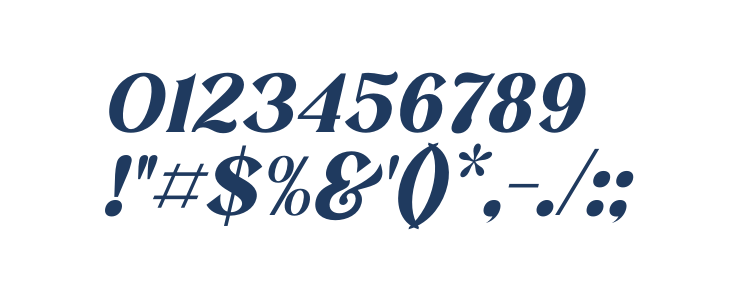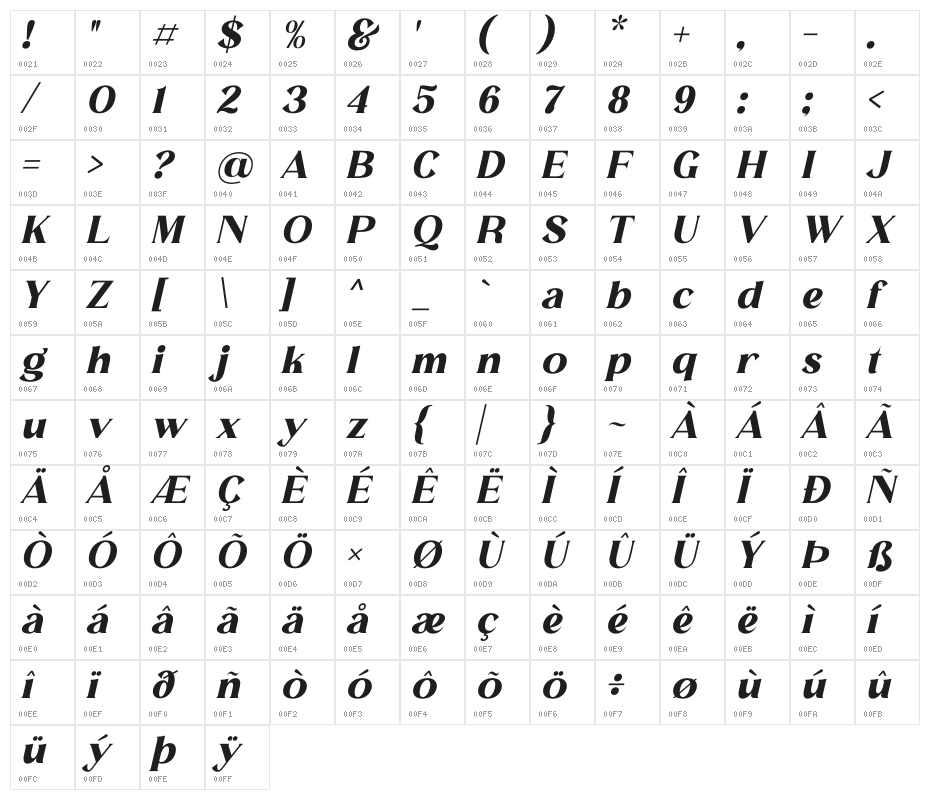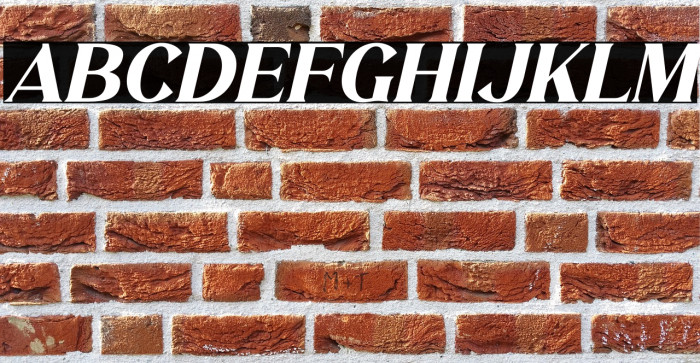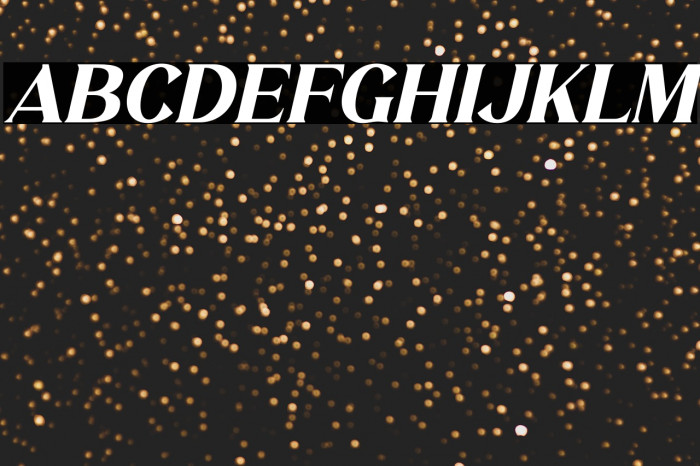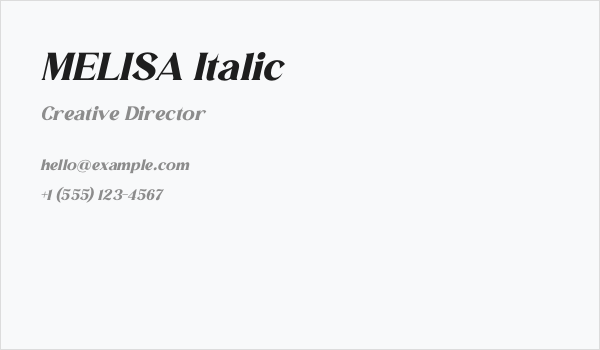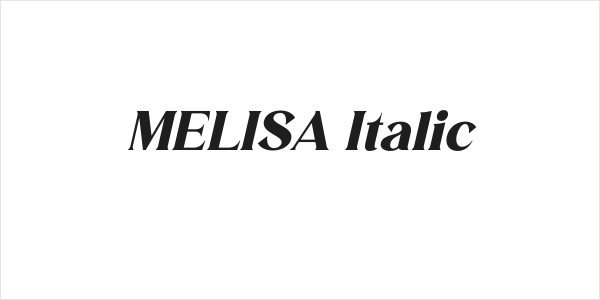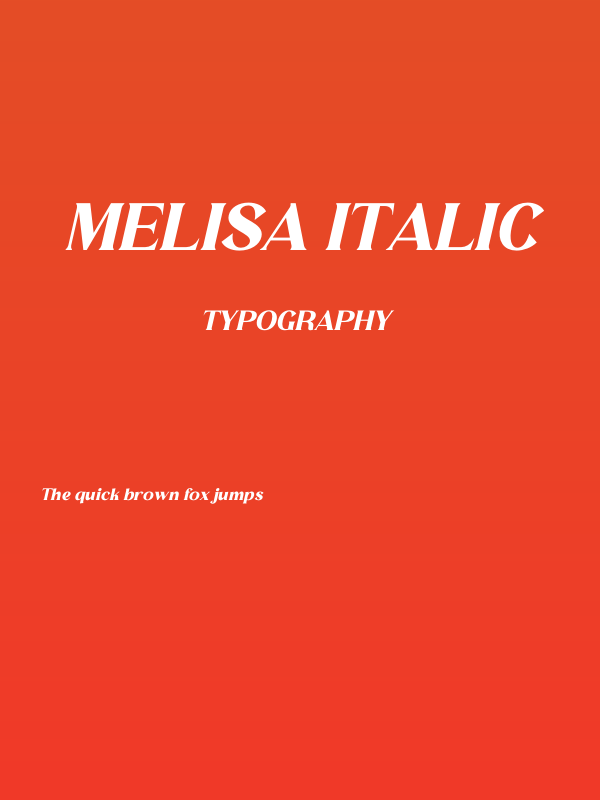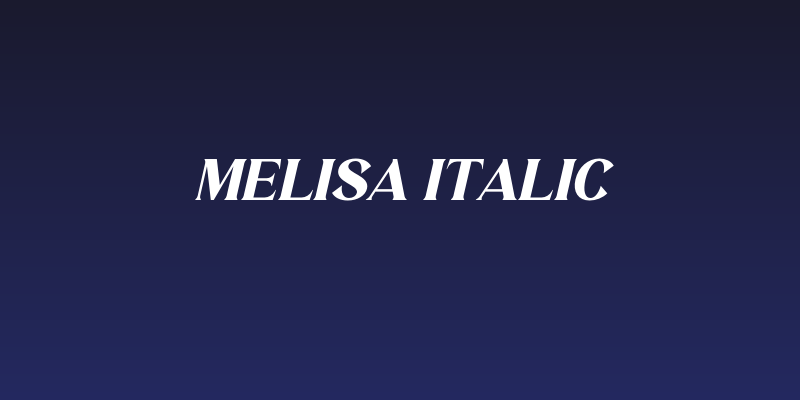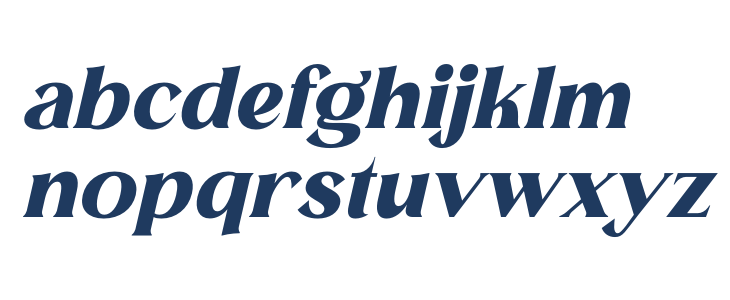
MELISA Italic Font
MELISA Italic Description
This font features an elegant italic style with a classic serif design. The characters exhibit a smooth, flowing appearance, with each letter slightly slanted to the right, enhancing its sophisticated look. The serifs are pronounced, adding a touch of formality and tradition. The uppercase letters are bold and commanding, while the lowercase letters maintain a graceful and refined presence. The numerals are consistent with the overall style, offering a cohesive look across all characters. Special characters are well-integrated, maintaining the font's aesthetic. This font's design is suitable for projects that require a touch of elegance and class.
| Proposed Projects | Ideal for wedding invitations, luxury branding, editorial design, and formal event programs. |